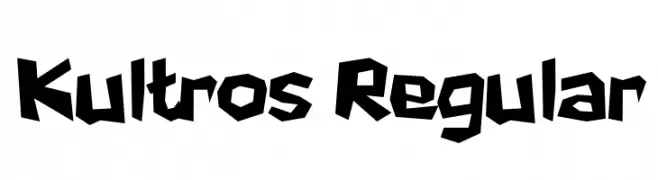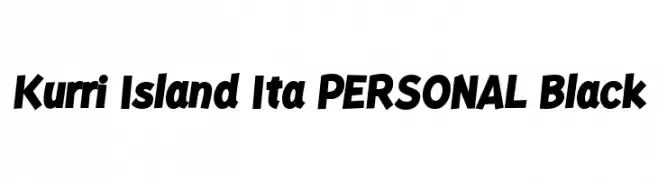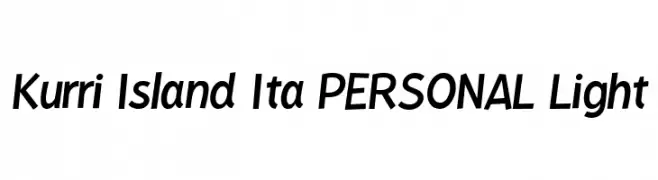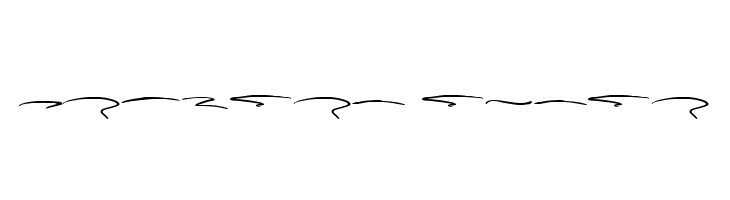
( Fonts by Beautypes )
A whimsical and decorative font with playful swashes and bold numbers.
( Fonts by Muchammad Wahono Sapto Adi Saputro )
A bold, angular font with a modern, edgy style.
A whimsical, hand-drawn font with tall, narrow characters and a playful style.
A decorative, outlined font with tall, narrow characters and exaggerated serifs.
( Fonts by Akbar Muharram )
A bold, cartoonish font with playful, exaggerated strokes and a hand-drawn feel.
( Fonts by Hanoded )
A playful, bold, hand-drawn font with a whimsical style and unique character designs.
( Fonts by Hanoded )
A playful, hand-drawn font with rounded characters and whimsical cat icons.
( Fonts by Måns Grebäck )
A bold, italicized font with high contrast and a modern, dynamic style.
( Fonts by Måns Grebäck )
A bold, italicized font with a dynamic and modern style.
( Fonts by Måns Grebäck )
A modern, italic sans-serif font with a clean and dynamic style.